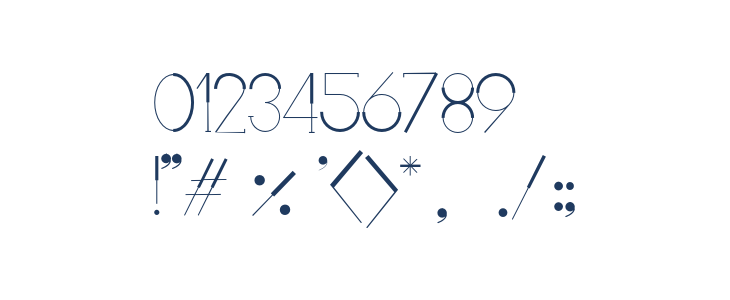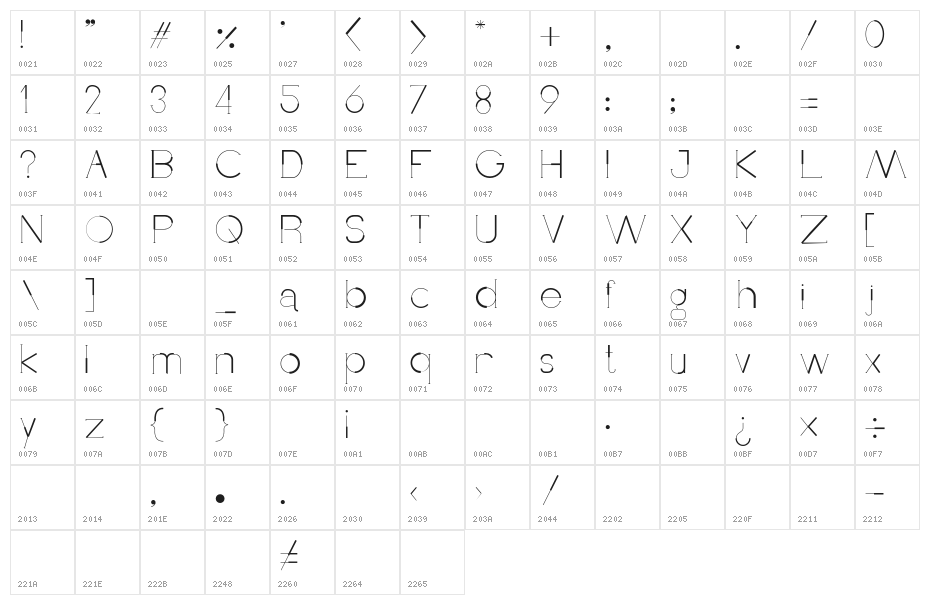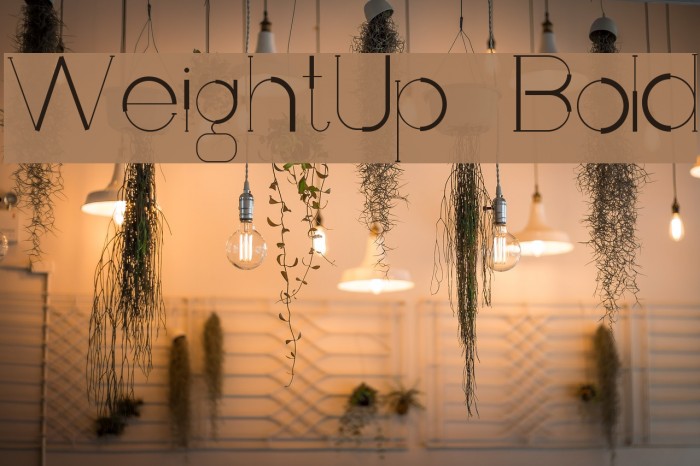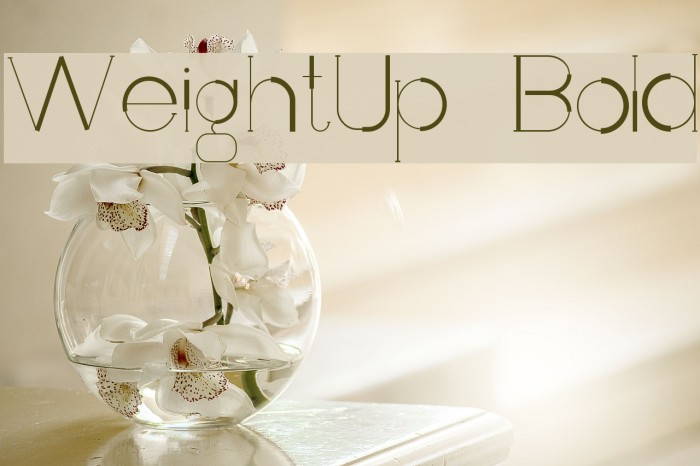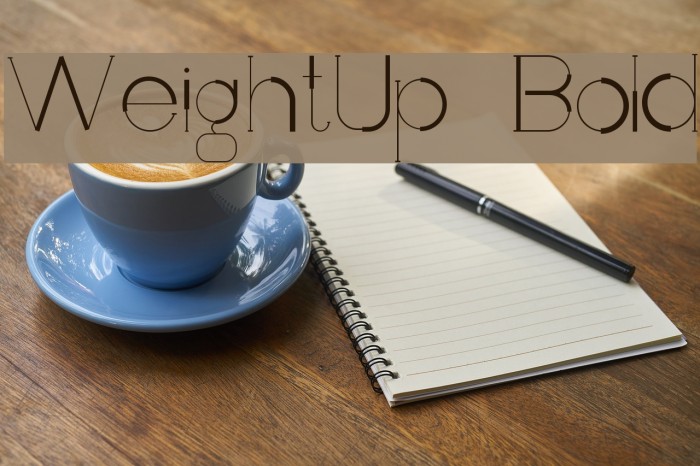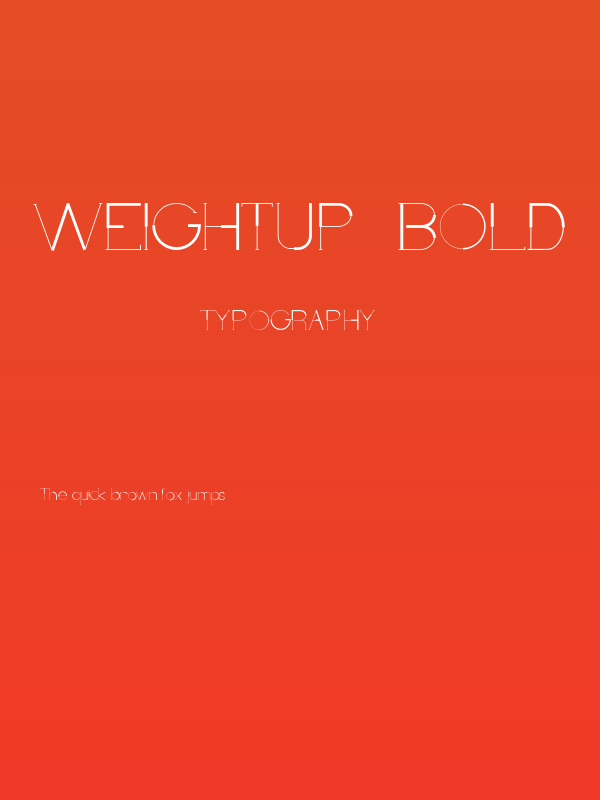
WeightUp-Bold Font
WeightUp-Bold Description
This font features a modern and sleek design with a unique blend of thick and thin strokes, creating a high contrast that draws attention. The uppercase letters are tall and elegant, while the lowercase letters maintain a consistent style with a slightly playful touch. The numerals are clear and distinctive, making them stand out. Special characters are creatively designed, adding to the font's overall aesthetic appeal. The combination of geometric shapes and clean lines makes it suitable for contemporary design projects.
Use CaseHeadlines, Logos, Branding
Proposed ProjectsIdeal for branding, advertising, and editorial design where a modern and stylish look is desired.